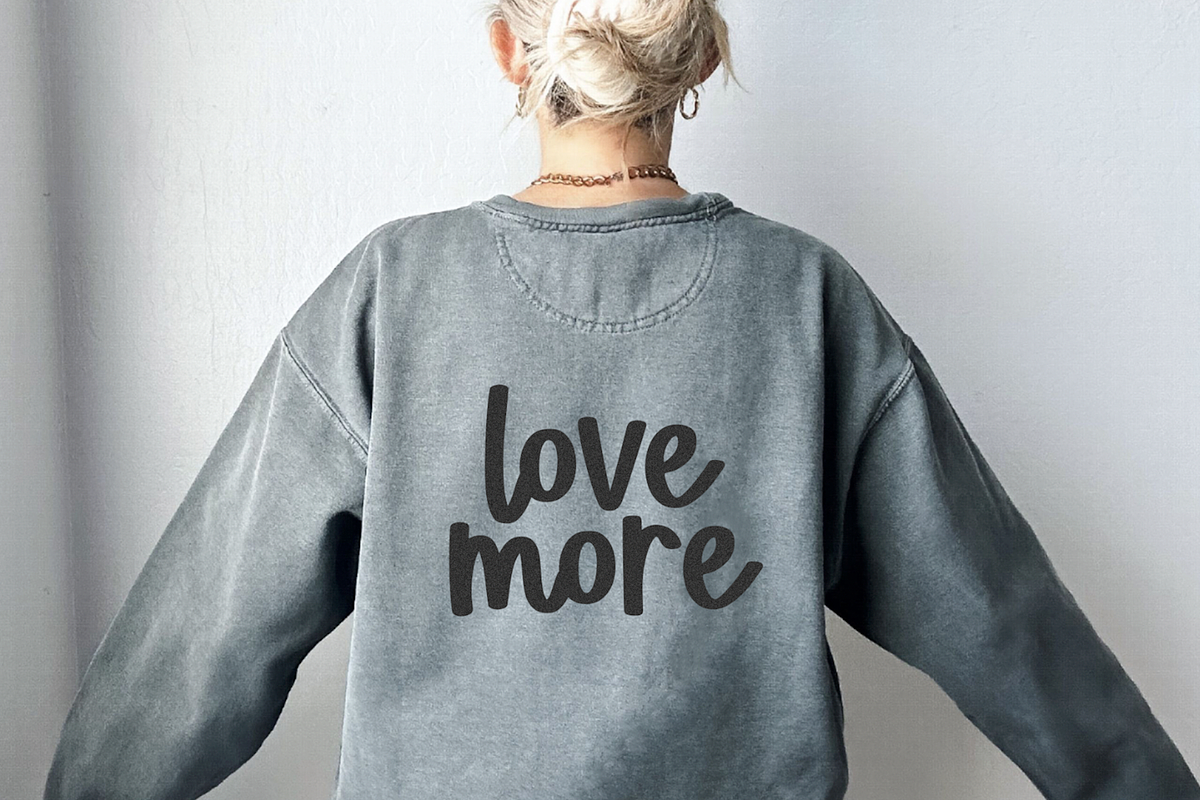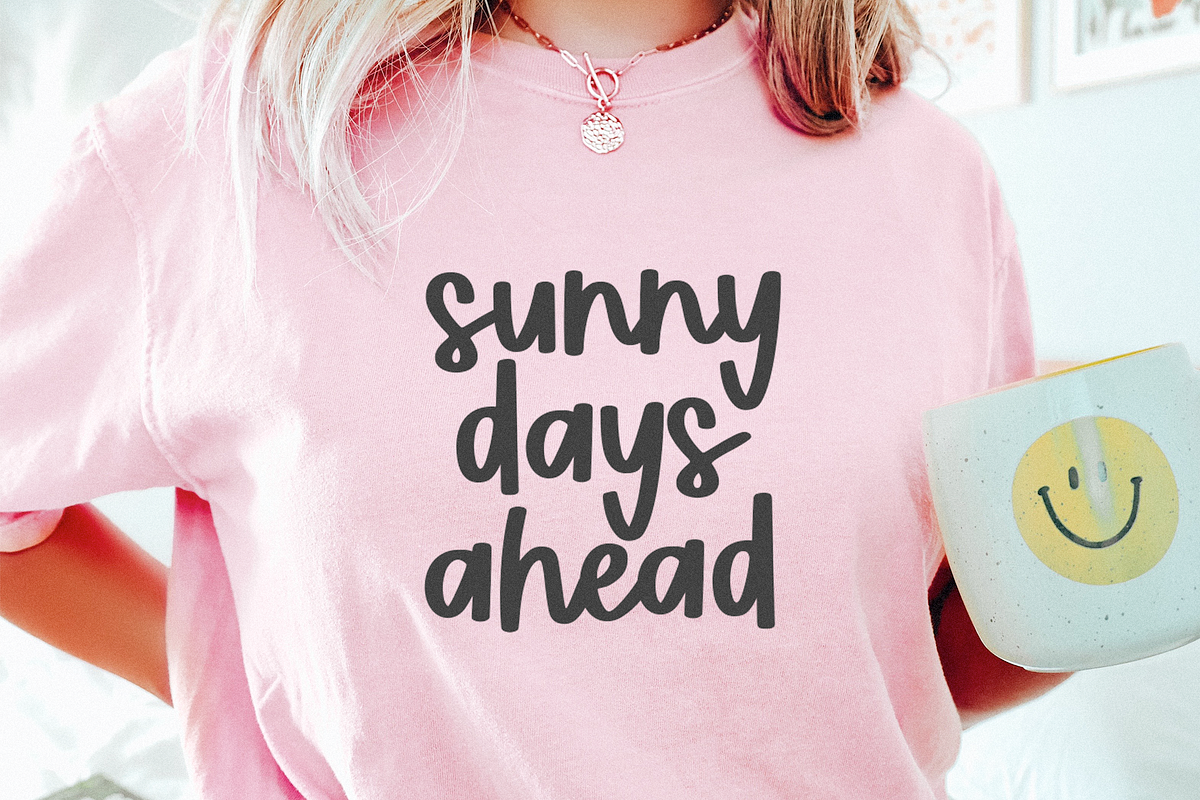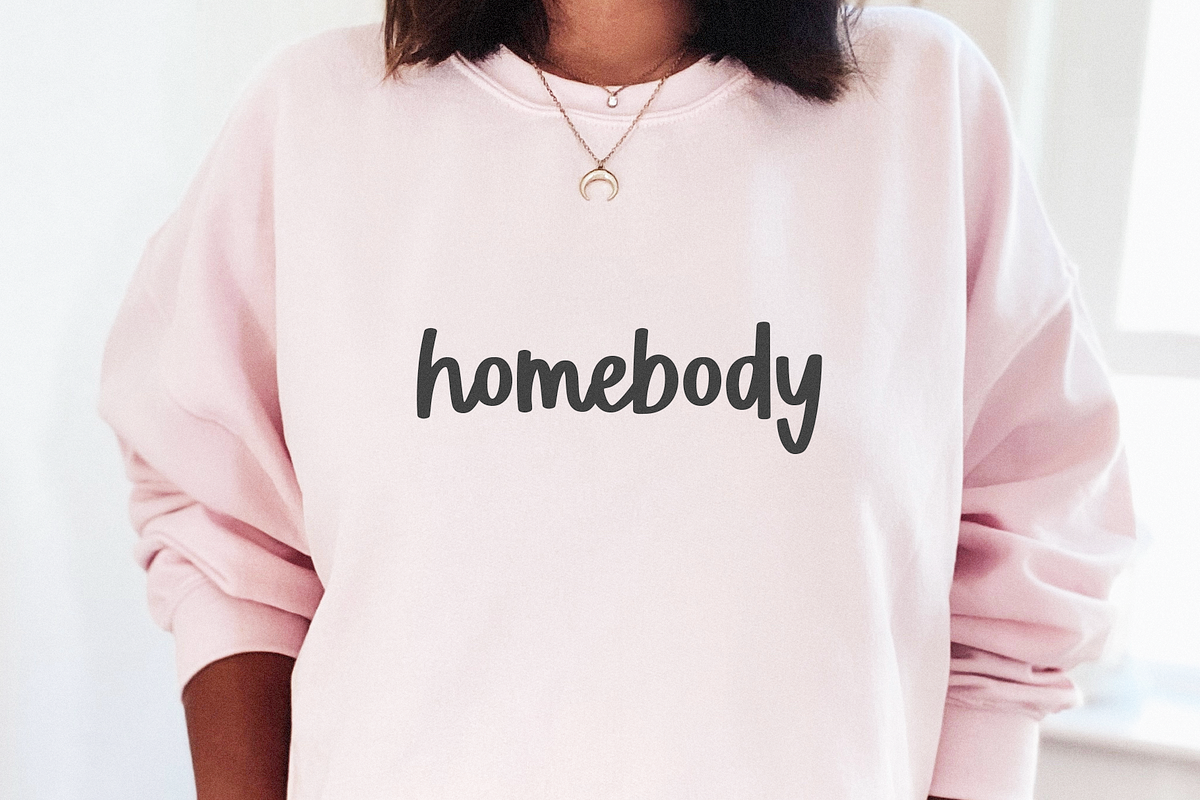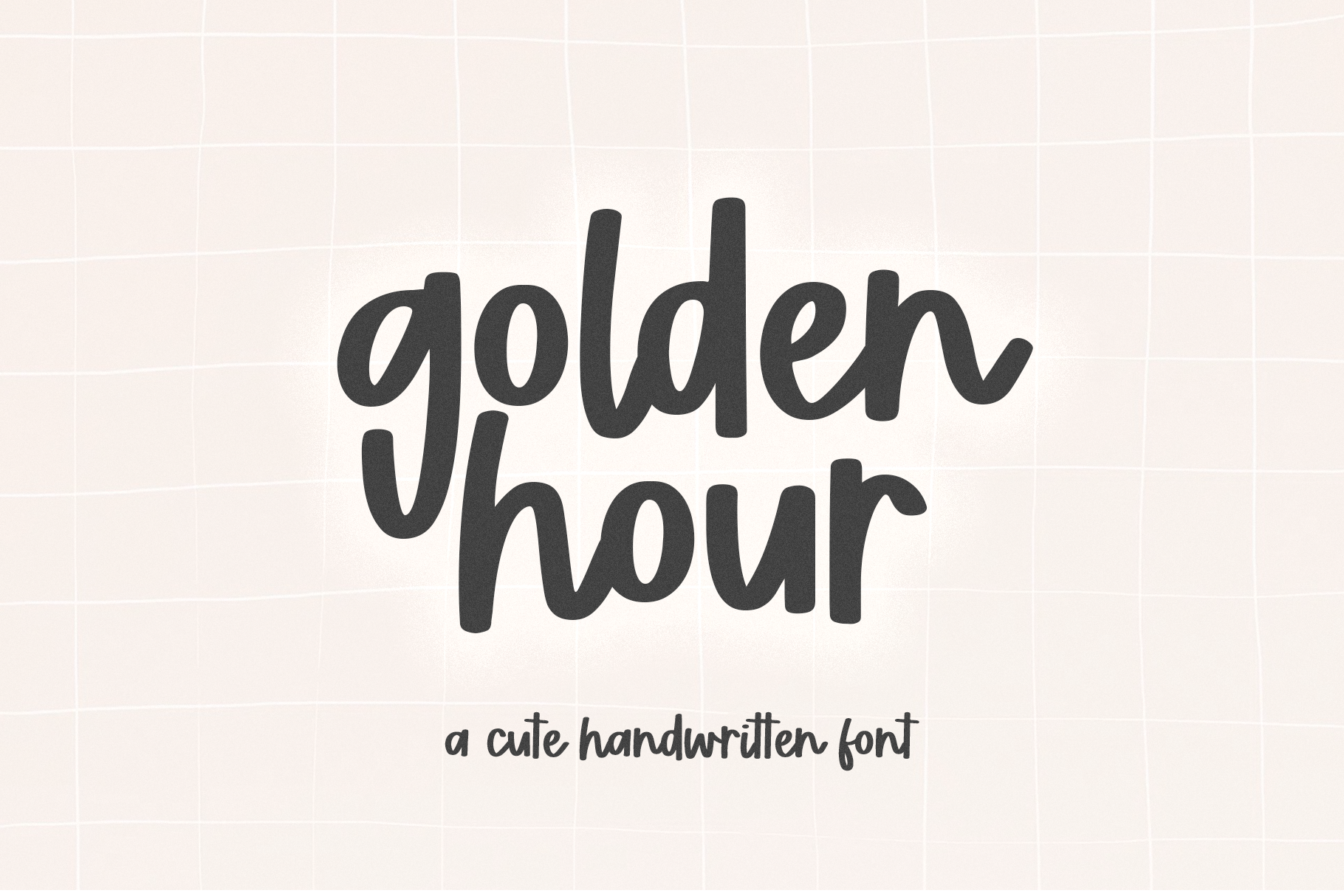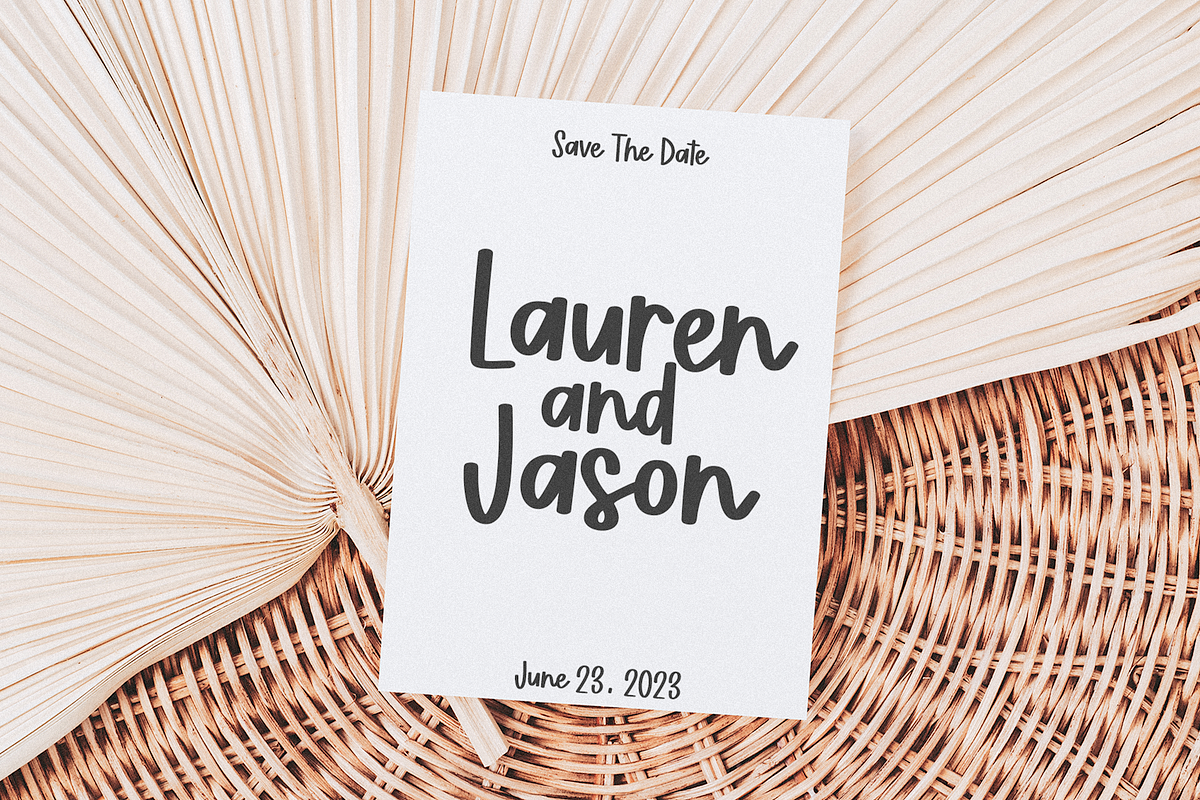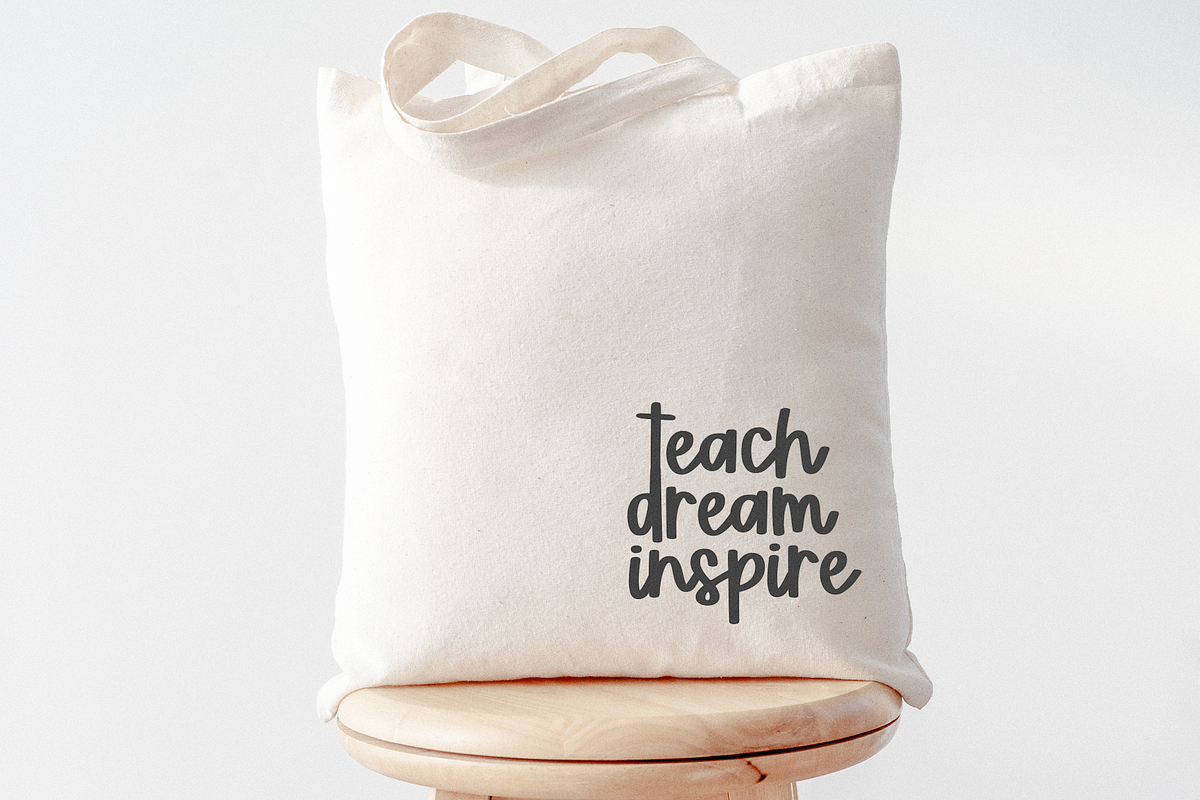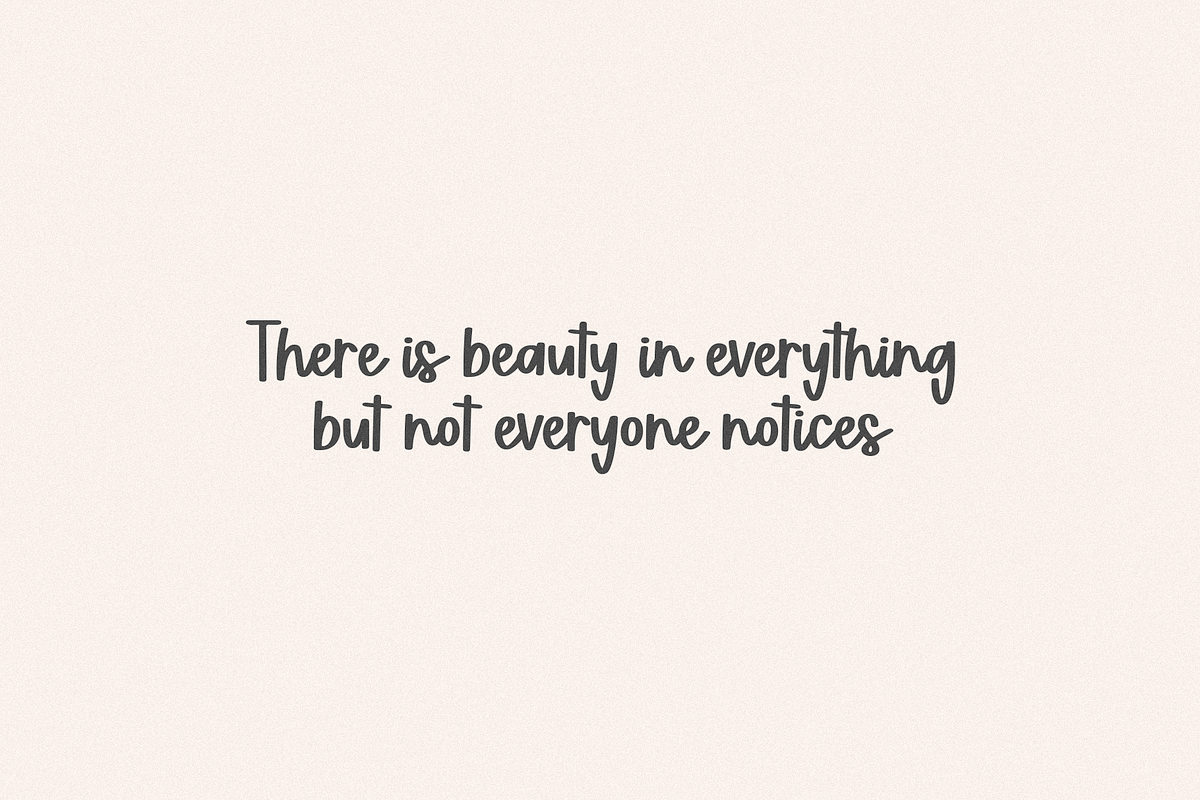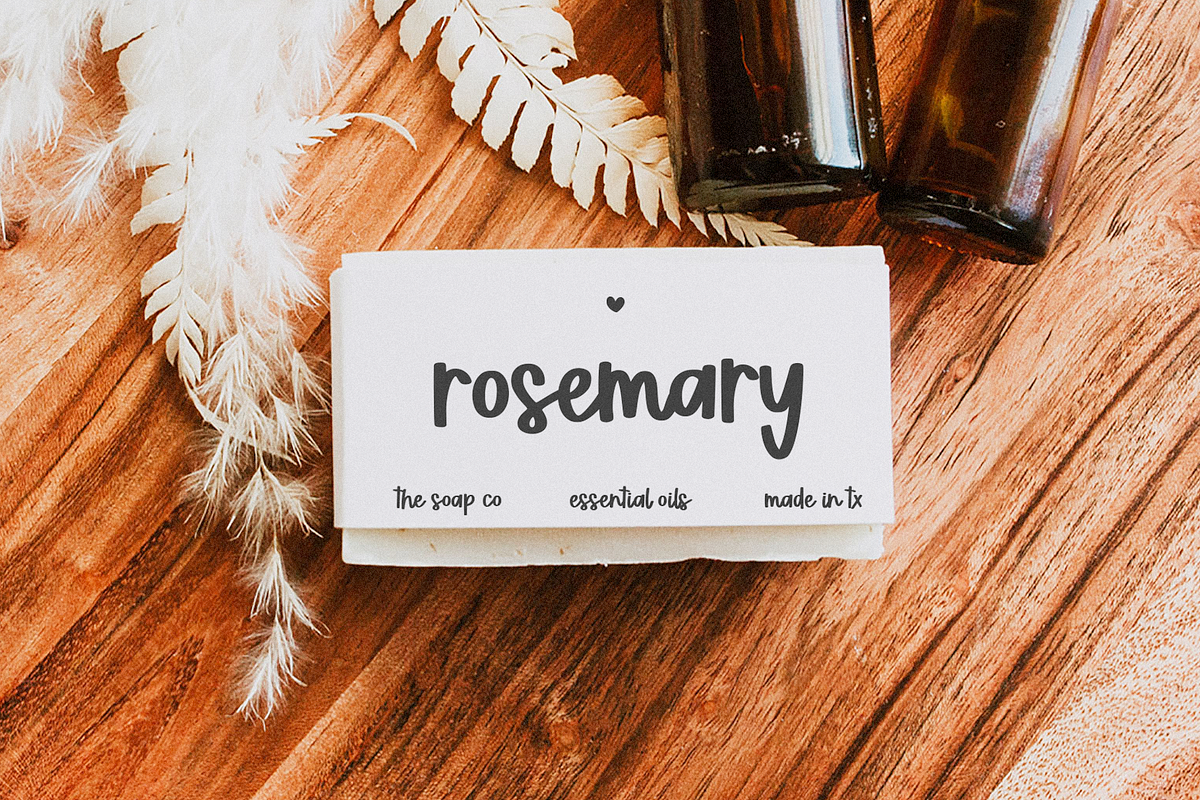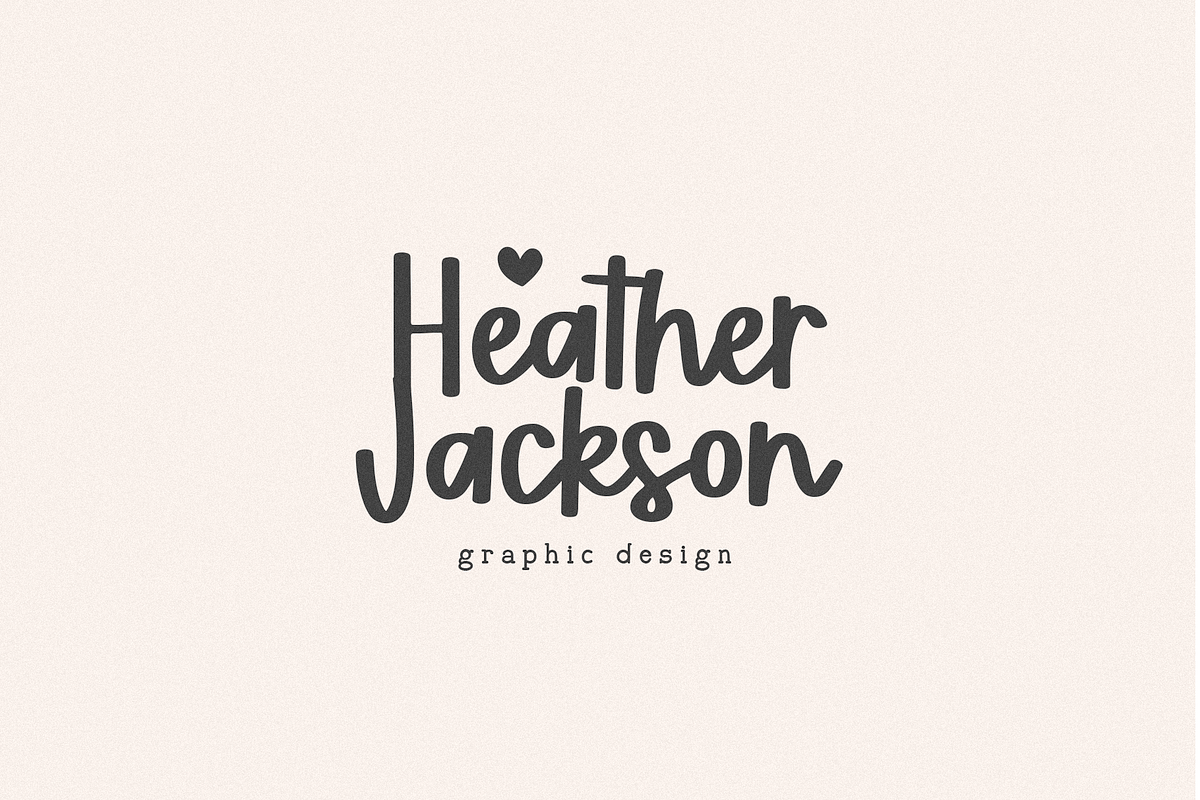
Golden Hour | Cute Script Font
Golden Hour is a cute handwritten script font.
This font is perfect for cricut projects, svg files, stickers, teachers, logos, procreate, goodnotes and more!